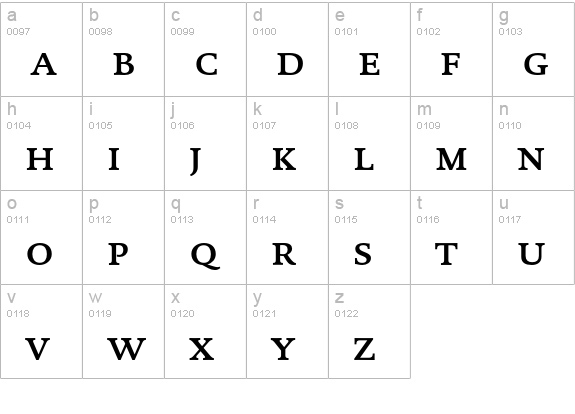
DTLDocumentaT-CapsMedium Font Details
The DTLDocumentaT-CapsMedium font is a stunning and versatile typeface that exudes elegance and sophistication. This font features beautifully crafted capital letters with a unique and modern twist, making it perfect for a wide range of design projects. With its sleek and stylish design, the DTLDocumentaT-CapsMedium font is sure to make a statement and elevate any creative work. Whether you are designing a logo, poster, website, or any other project, this font will add a touch of class and professionalism. Best of all, the DTLDocumentaT-CapsMedium font is available for free download at FontsMarket.com, making it easily accessible to all designers looking to enhance their projects with a touch of elegance. Don't miss out on this fantastic opportunity to add this gorgeous font to your collection and take your designs to the next level.